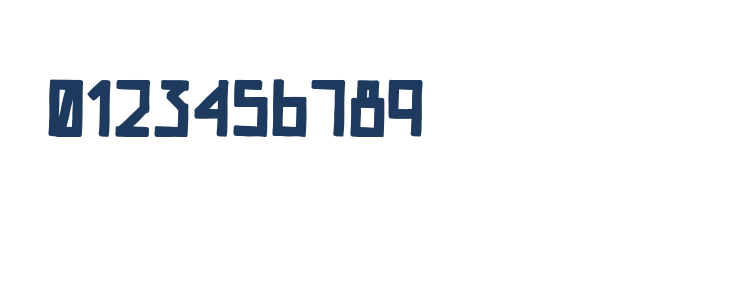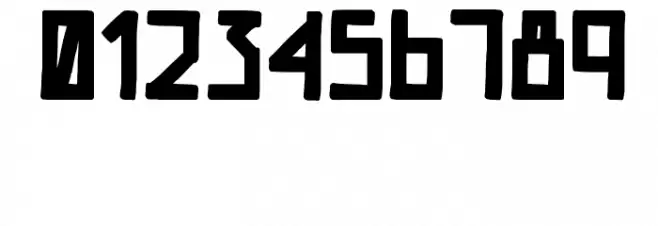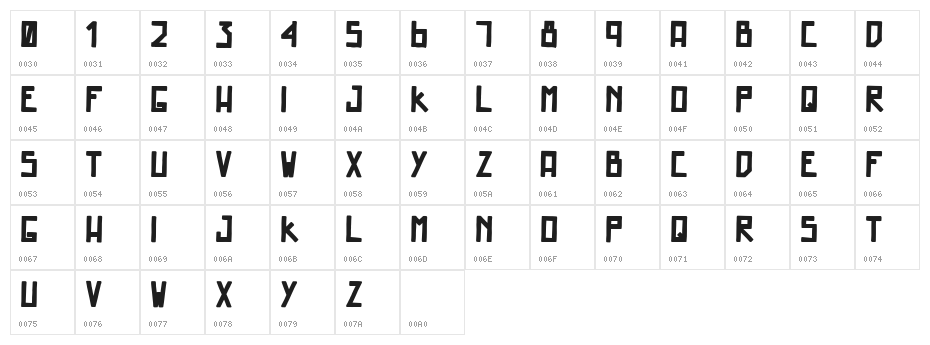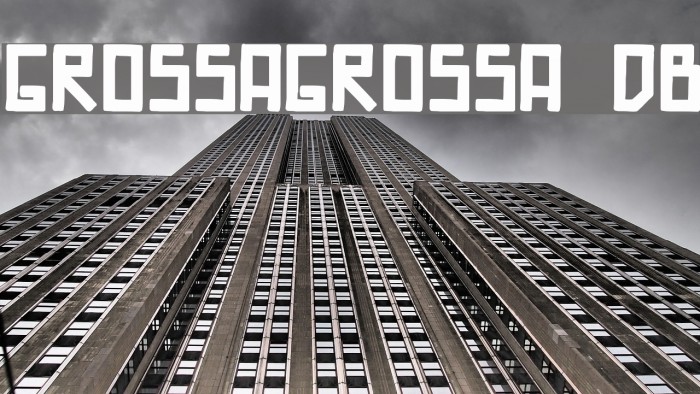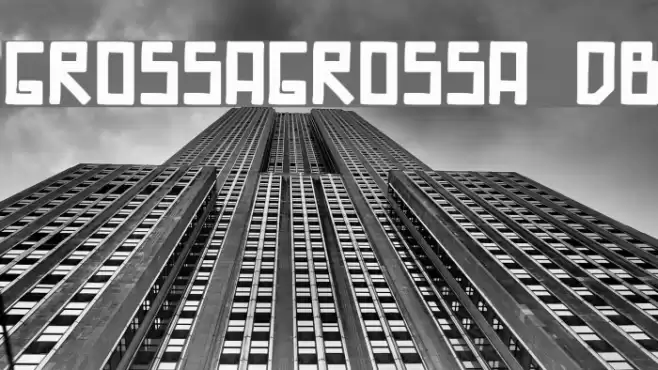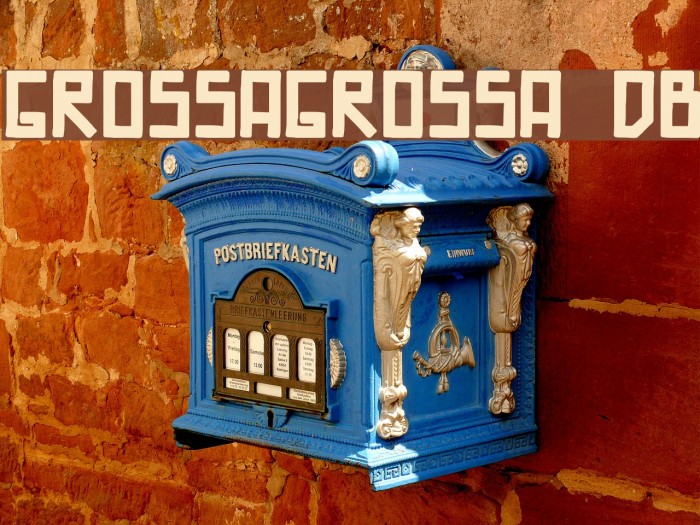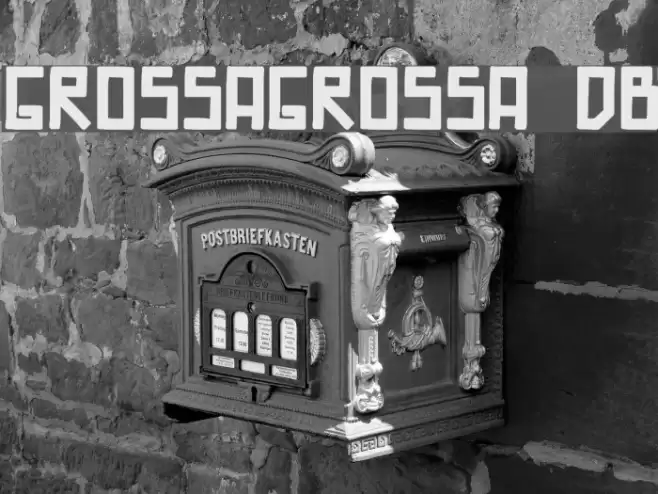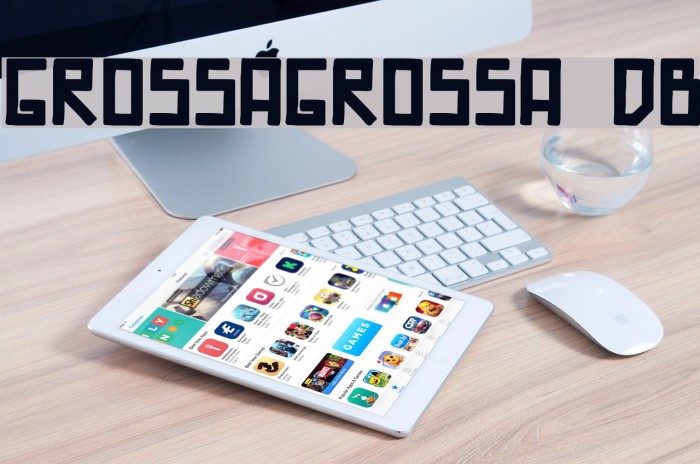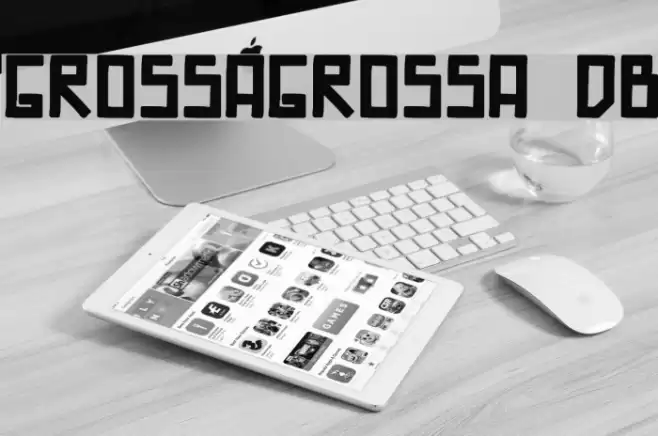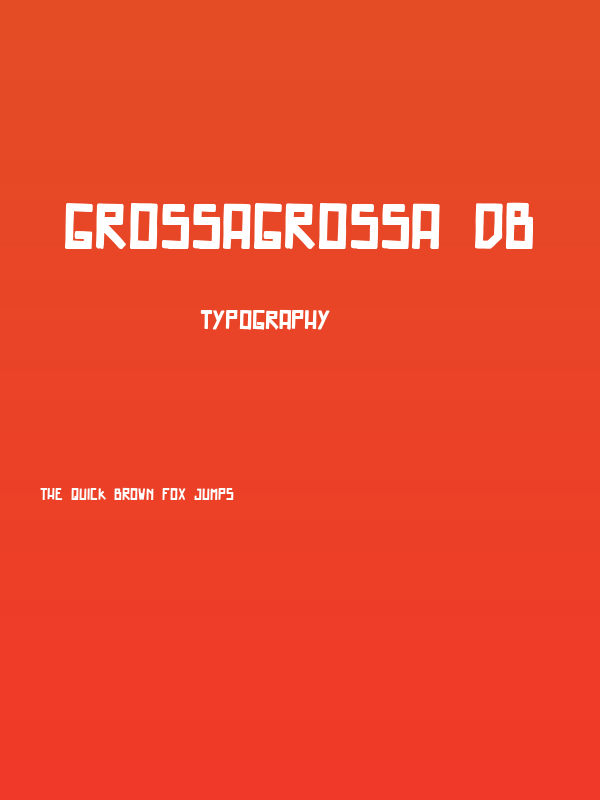
GrossaGrossa DB Font
GrossaGrossa DB Description
This font features a bold and striking design, characterized by its thick, block-like letters. The uppercase and lowercase letters share a consistent, geometric style that emphasizes straight lines and sharp angles. The numbers follow the same design principles, ensuring uniformity across all characters. The font's unique appearance makes it stand out, with a modern and edgy feel that is both eye-catching and memorable. Its boldness and distinctiveness make it suitable for projects that require a strong visual impact.
| Proposed Projects | Ideal for posters, branding, headlines, and any design needing a bold statement. |